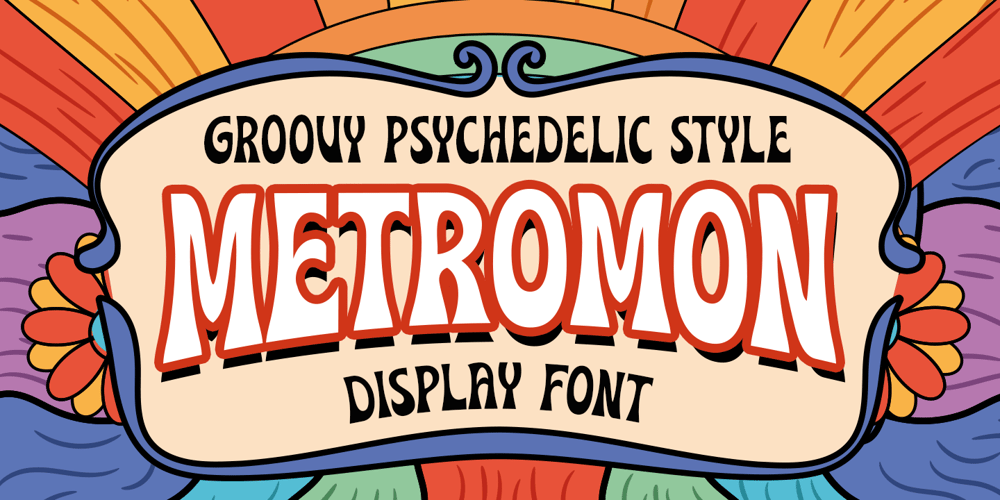
Metromon Font Family was designed by Novitasari Romli and published by Novitype. Metromon contains 1 styles and family package options. Metromon is a vintage font that combines groovy and psychedelic styles. It is designed to take you back to the nostalgic era of the 80s. Its unique shape provides opportunities for you to use it in various styles, especially in pop art and retro themes.This font is highly versatile with its bold and flowing form, allowing you to add a more dynamic touch. It is well-suited for posters, branding, logos, social media, advertisements, motion graphics, labels, and more!Here are what you’ll get : All capital character set Numbers & symbols Punctuation Multilingual support Stylistic alternates